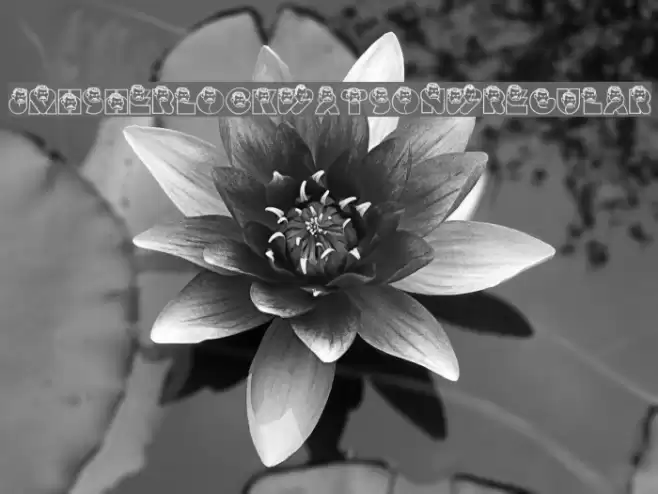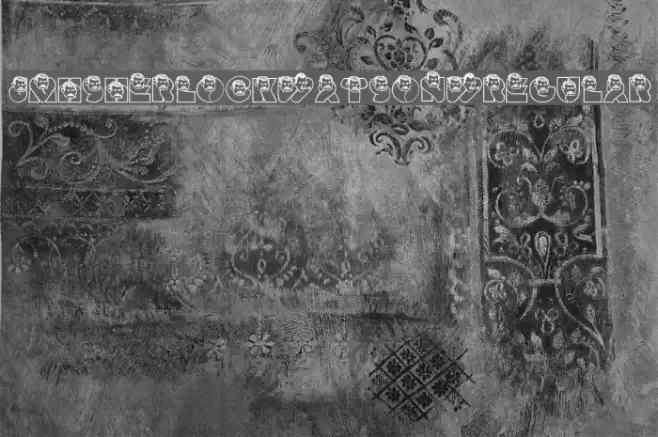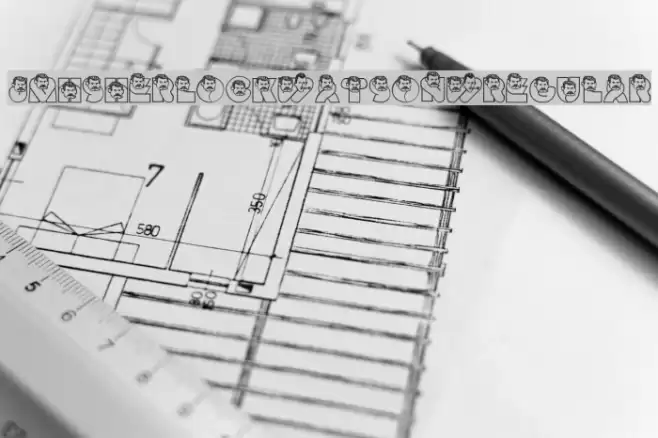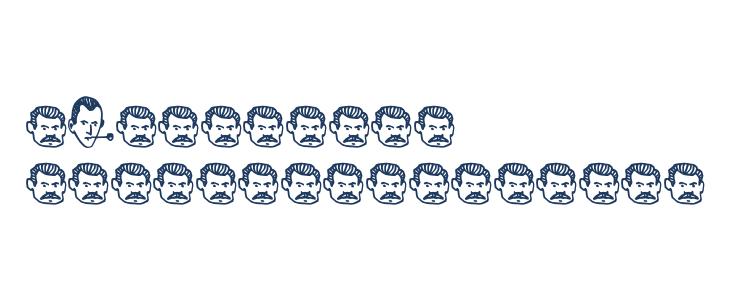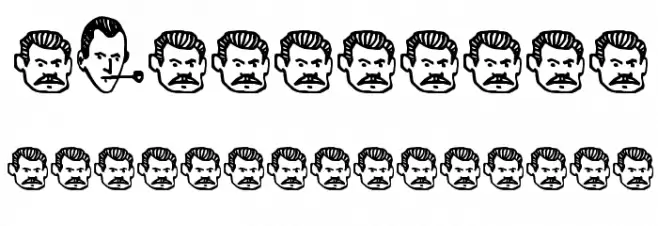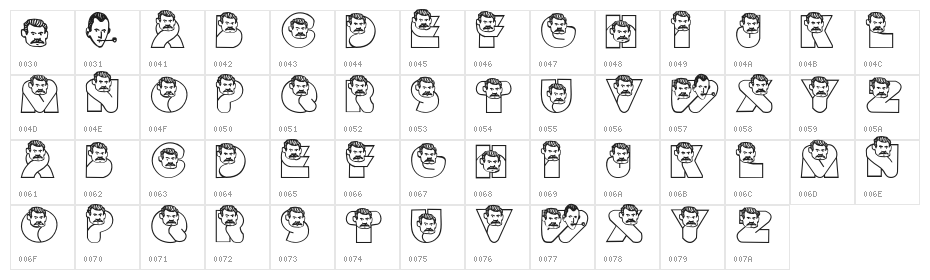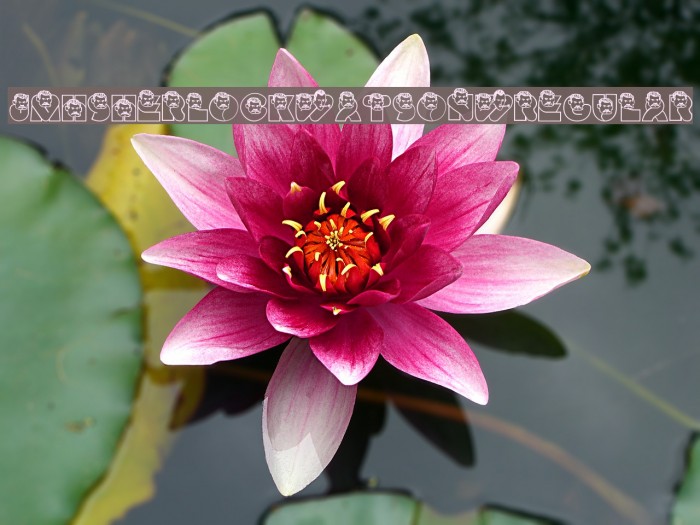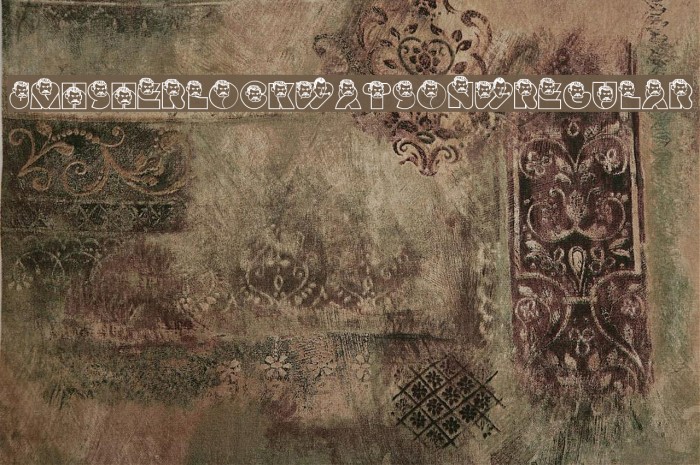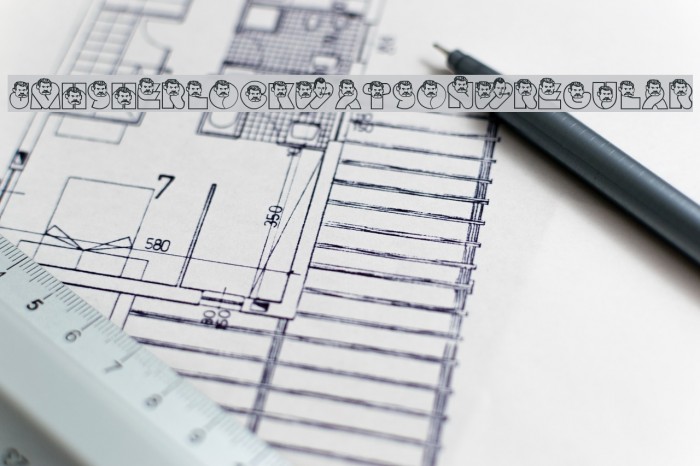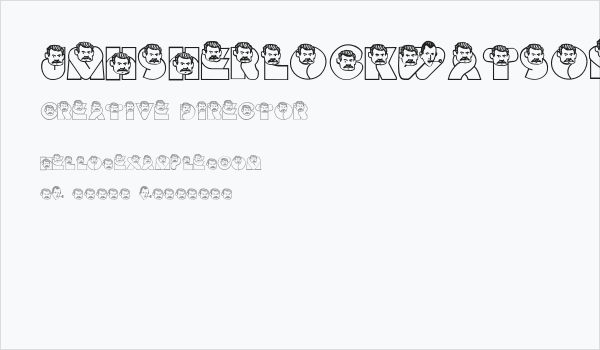
JMHSherlockWatsonW-Regular Font
JMHSherlockWatsonW-Regular Description
This font features a unique and playful design where each letter is integrated with a stylized illustration of a character's face, adding a whimsical and humorous touch. The characters are bold and outlined, with the faces occupying a significant portion of the letterforms, creating a distinctive and eye-catching appearance. The font maintains a consistent style across both uppercase and lowercase letters, as well as numbers and special characters, ensuring a cohesive look. Its decorative nature makes it suitable for projects that require a fun and engaging visual element.
A playful, character-infused font with bold outlines and whimsical illustrations from Uncategorized fonts.